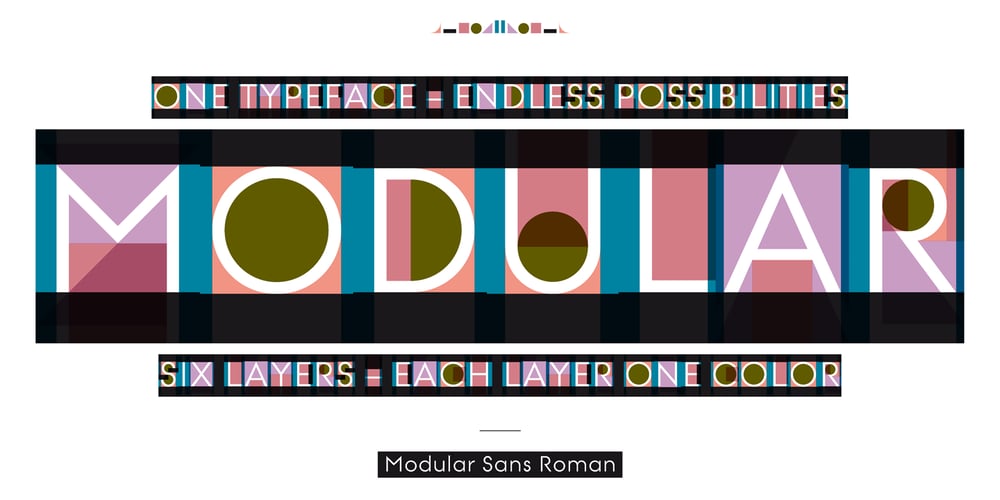
Modular Font Family was designed by Fabian Widmer and published by Letterwerk. Modular contains 42 styles and family package options. Modular is a six layer stacking display typeface. Six different shapes fill counterpunches and spaces between the letters. Six different layers build the type. In Modular each layer can be colored differently. Further more it is possible to adjust the order of the layers as well as the «blend mode». This gives you the opportunity to design a huge range of different moods. Don’t go nuts by this universe of possibilities! Please check the PDF-File in the gallery for detailed informations and more examples. Use Modular ONLY in graphic applications which allow you to utilize layers such as Adobe Illustrator, Adobe InDesign and Adobe Photoshop. Modular does NOT work in programms such as Microsoft Word or Microsoft Excel. We programmed scripts and actions for Adobe InDesign and Adobe Illustrator. It’s pretty easy to create stacked Modular text in those programms — just load the actions and press play! Download all the necessary scripts/actions HERE. For detailed information watch the «How-to-use-Modular»-Movie online on: letterwerk.ch. Existing cuts: Modular Sans Roman (The shapes are exactly arranged), Modular Slab Roman (The Shapes do overlap and are out of alignment), Modular Slab Bold (The Shapes do overlap and are out of alignment)